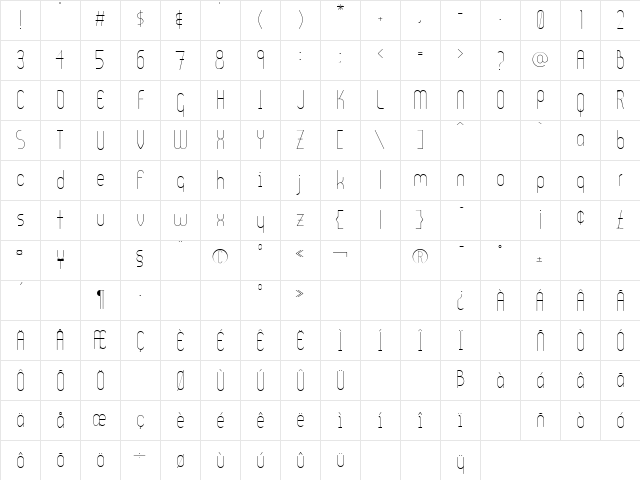
Ultura Light
Design Context for Ultura Typeface
Ultura is a composed and adaptable typeface that performs quietly and consistently across a wide range of design contexts. Its slender proportions lend an understated elegance to any composition.